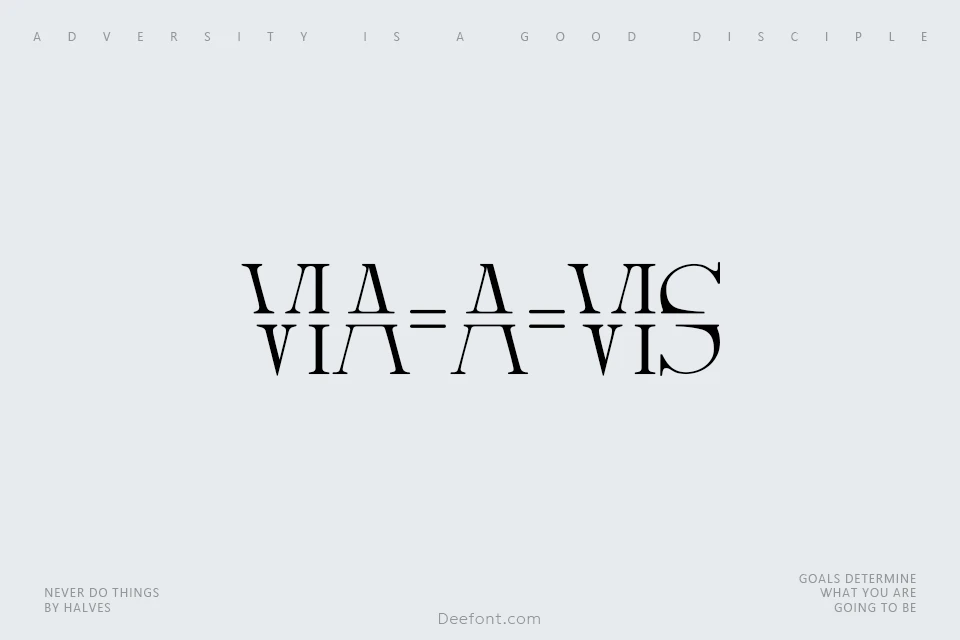
Via-A-Vis Font
Via-A-Vis Font is a dynamic and contemporary typeface designed to bridge the gap between geometric precision and organic fluidity. Its hybrid style merges sharp, angular lines with subtle rounded terminals, creating a harmonious balance of modernity and approachability. Perfect for branding, editorial design, and digital platforms, Via-A-Vis offers multiple weights and stylistic alternates, allowing seamless adaptation to diverse creative needs. The font’s open counters and balanced proportions ensure clarity at any size, while its playful ligatures and glyph variations inject personality into headlines and logos. With multilingual support and seamless software compatibility, Via-A-Vis empowers designers to craft visually compelling, versatile typography that feels both cutting-edge and timeless.